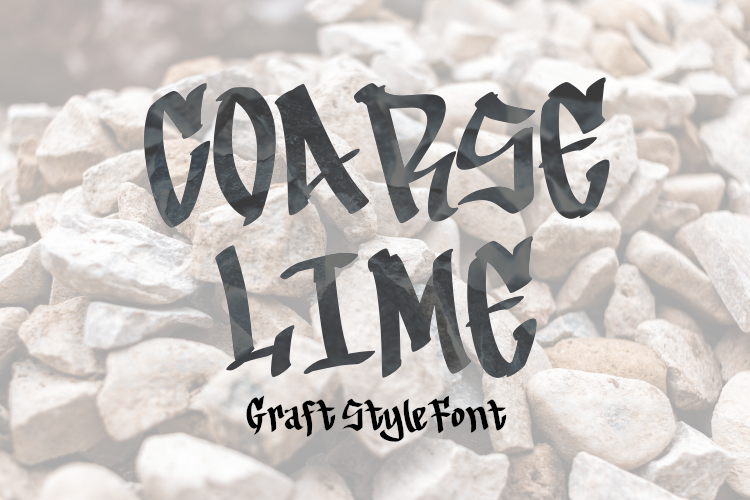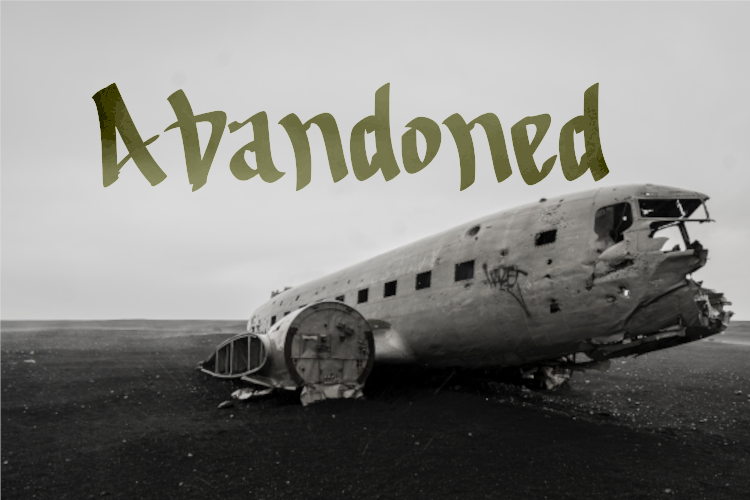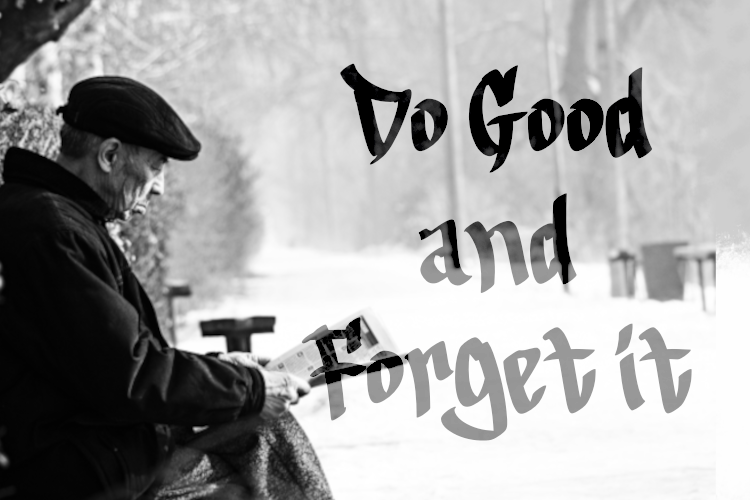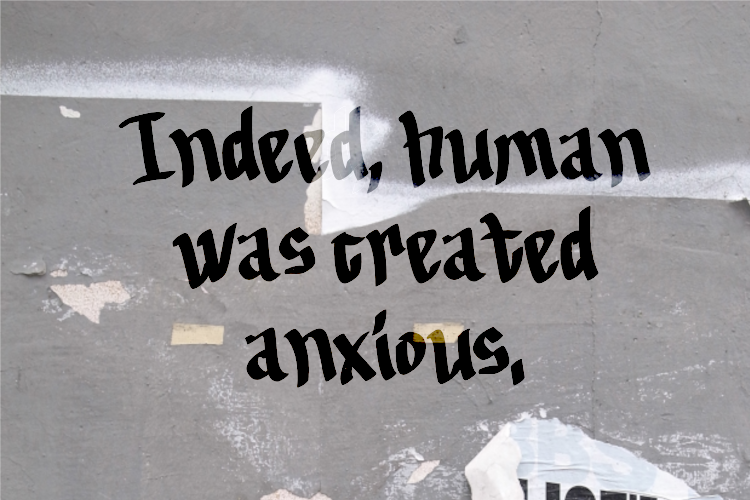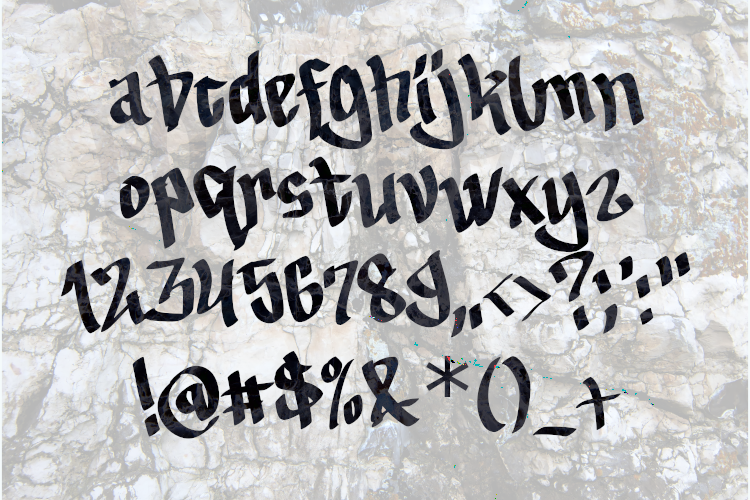
Coarse Lime is perfect for product packaging, branding projects, magazines, social media, album covers, or just to express words above the background.